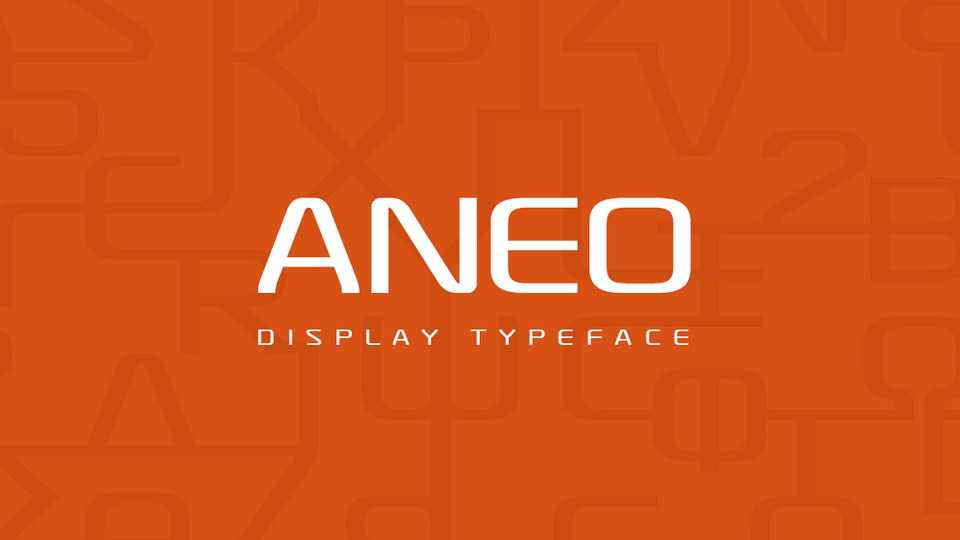
Download Aneo typeface, a sans serif font family in two weights and Italics. Aneo is mostly a strong display typeface, intended for headings and short passages of text.
Designer: Anastasios Pappas